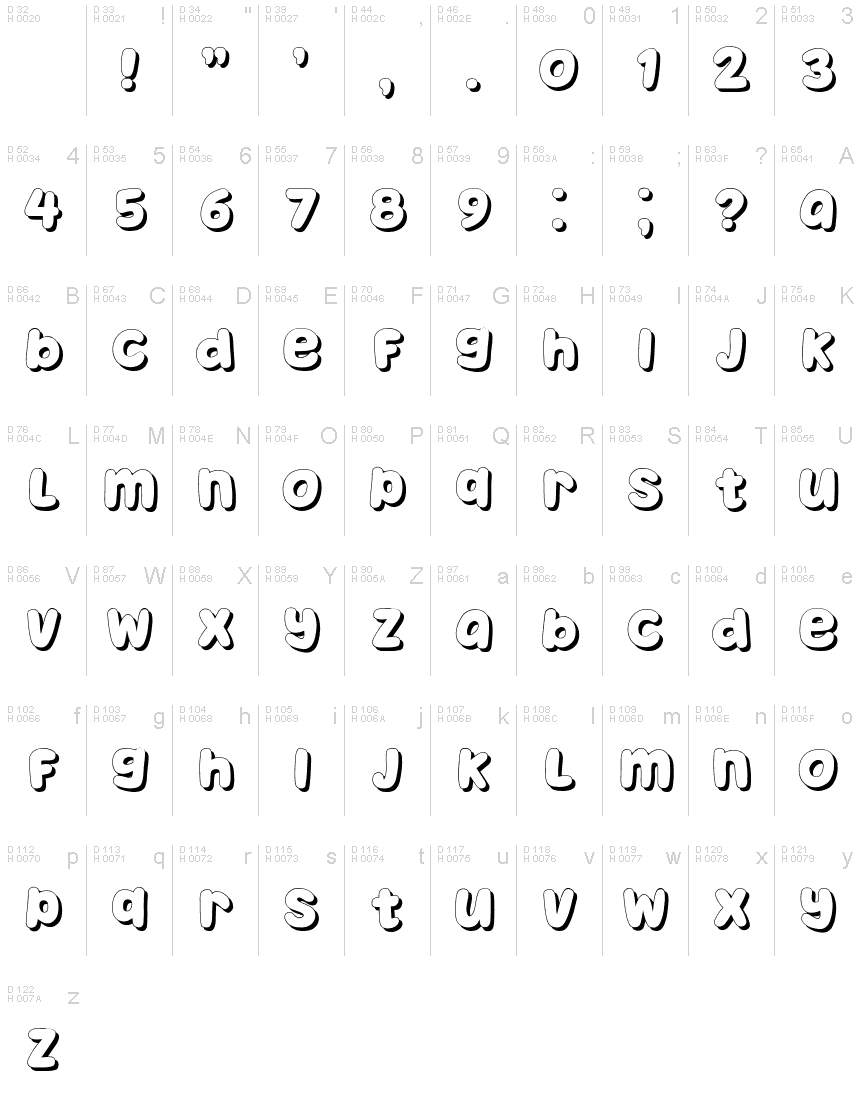
Takeover Shadow Regular
Takeover Shadow font is a lovely comic typeface designed by Vladimir Nikolic.
"Takeover" comes in Regular, Shadow, School, School Hollow, and College variants!